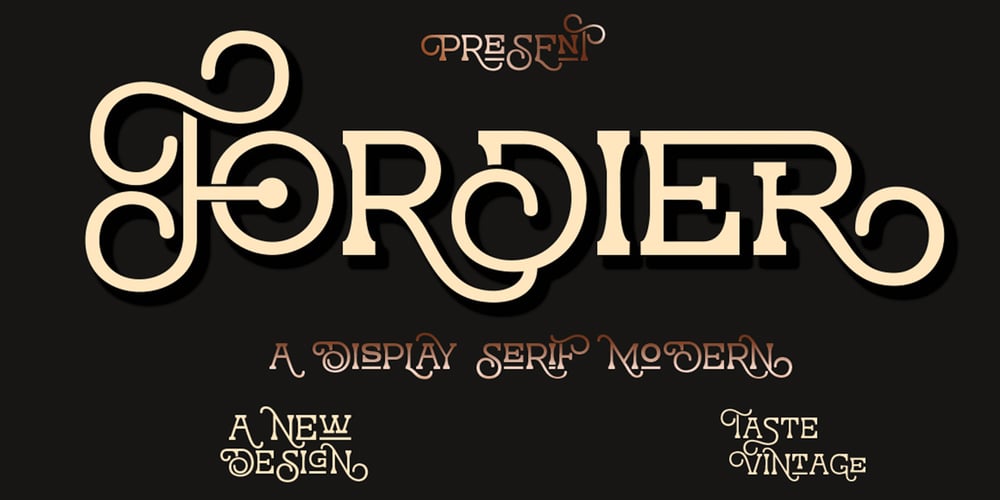
Fordier
Fordier font
Fordier Font Family was designed by Ibram Syah and published by Jehansyah. Fordier contains 1 styles and family package options. Fordier is a type of serif display font that is very charming, elegant and stylish, with alternate characters that are tailored to the user, very suitable for all types of designs, titles, book covers, invitations, movie titles, social media, stickers, old and classic looks combined in greetings, and this font is also encoded with PUA which means you can easily use all the letters on all glyphs,